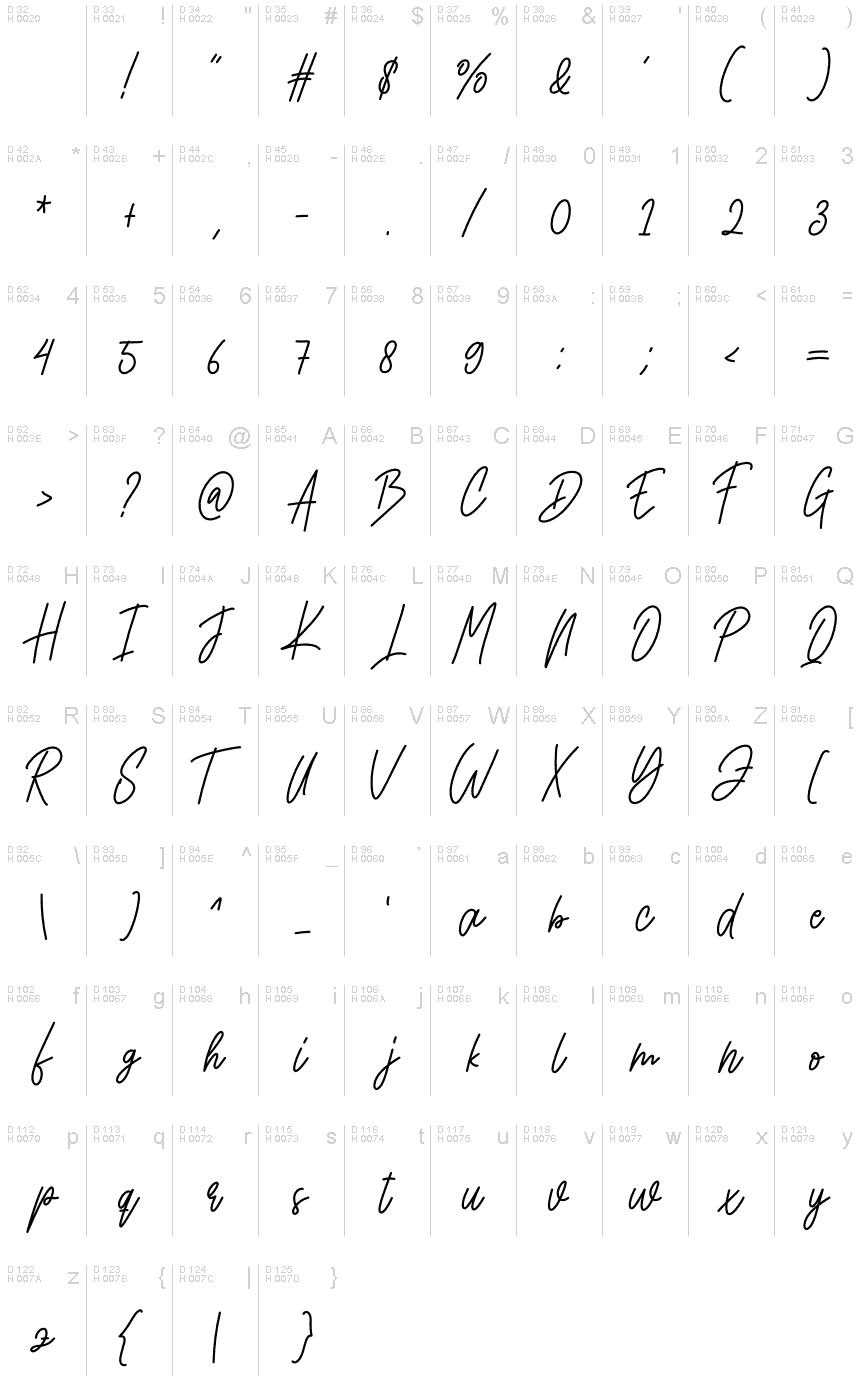
Reallity
Reallity, a whimsical handwritten font, designed by Scratchones, adds a touch of playfulness to any project.
With its light weight and condensed width, it brings elegance to invitations and greeting cards. Its unique charm makes it perfect for children's books and educational materials. Reallity's organic strokes make it an ideal choice for branding natural skincare products or organic food labels. Stand out with Reallity on social media graphics or blog headers, showcasing your creativity and authenticity.
Let Reallity bring a sense of joy and character to your next design endeavor.